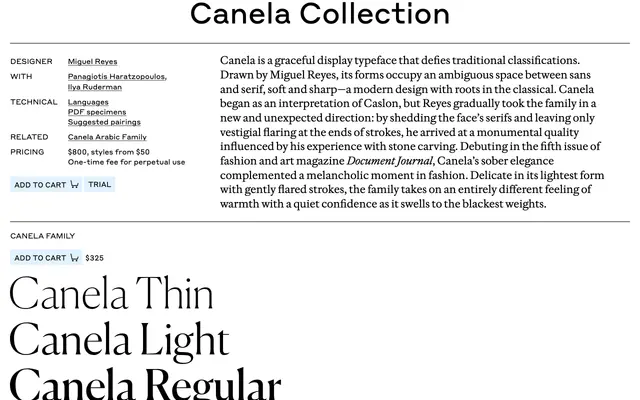
Canela
A graceful flared display family from Miguel Reyes that sits between sans and serif, much loved in fashion and editorial work.
A graceful display family by Miguel Reyes that began as an interpretation of Caslon before he stripped back the serifs to leave only vestigial flaring, arriving at a monumental quality drawn from stone carving. Canela debuted in the fifth issue of Document Journal and quickly settled into fashion and editorial typography, delicate at its lightest weights and warmer and more confident as it swells to black. The collection spans Canela Display, Canela Deck, Canela Text and Canela Condensed across six weights with matching italics, plus Cyrillic and Greek extensions and a separate Canela Arabic.
Commercial Type describe Canela as a graceful display typeface that defies traditional classifications, occupying an ambiguous space between sans and serif through vestigial flaring at stroke ends. Began as an interpretation of Caslon before Reyes shed the serifs to arrive at a monumental, stone-carved quality.